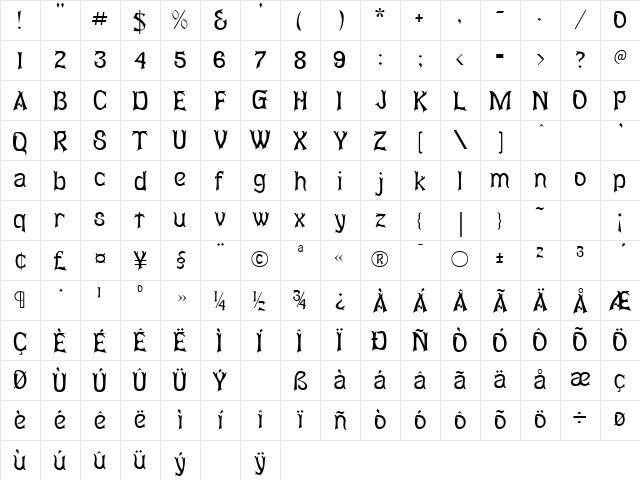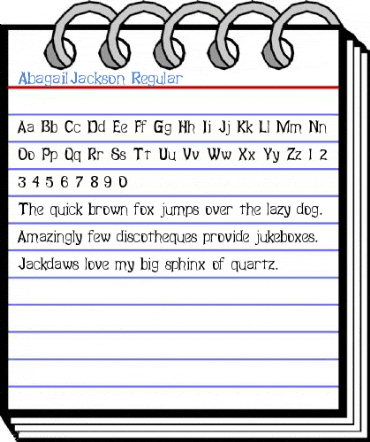
Complete AbagailJackson Regular glyph index. Displaying only characters natively supported by AbagailJackson Regular font.
AbagailJackson is a composed and adaptable typeface that performs quietly and consistently across a wide range of design contexts.
Pro Tip: Use AbagailJackson in both headline and body roles to test its range before committing to a single application.